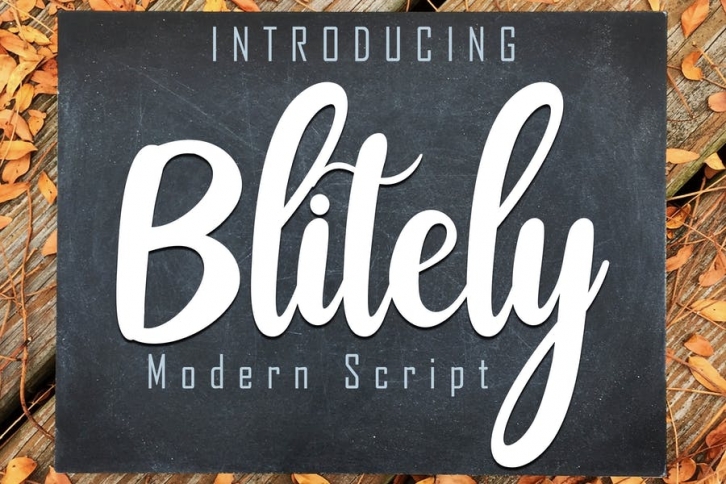
Blitely is a cool and beautiful modern script font with multiple ligature and multilingual features so it is very suitable to support the commercial activities of your company or business
Ligature